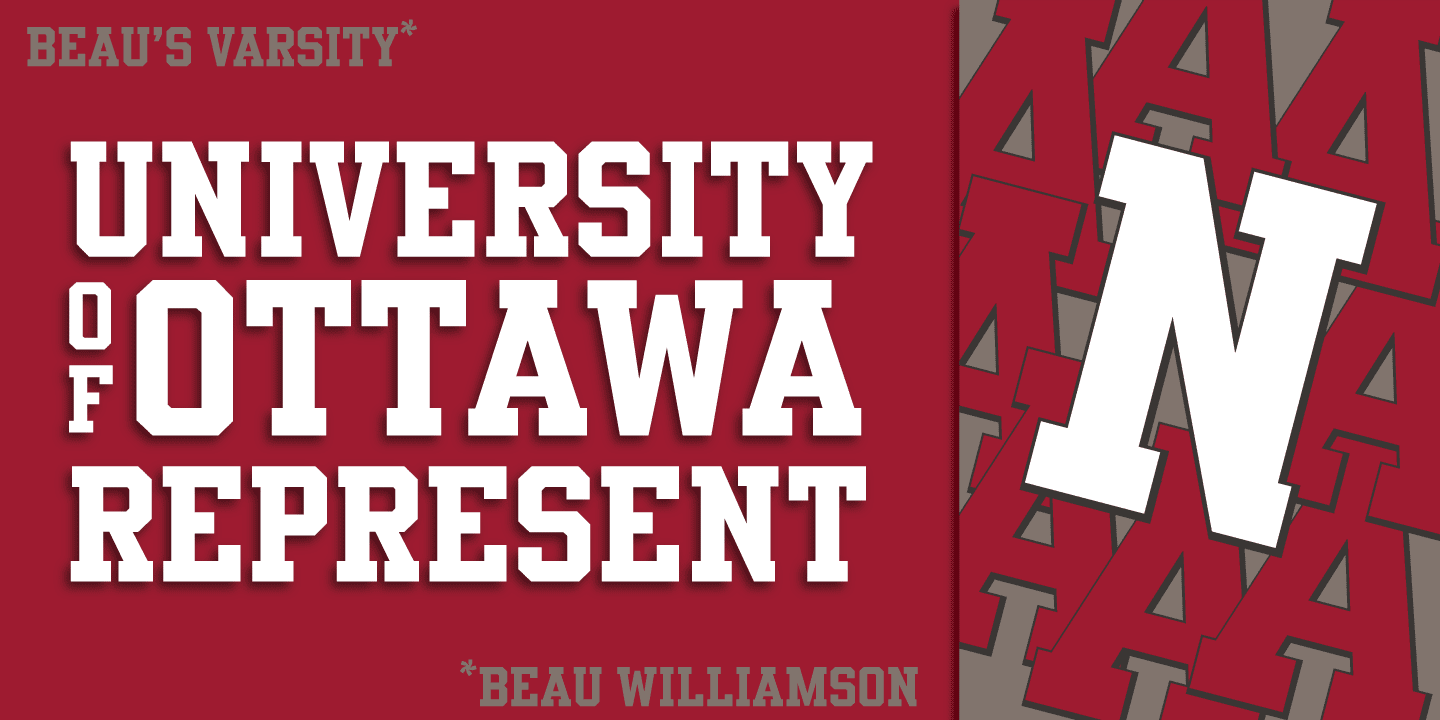
Beau's Varsity Font is ideal for college athletics branding, university sports teams, school spirit merchandise, varsity letter jackets, academic achievement certificates, college reunion materials, student organization logos, school pride campaigns, educational institution signage, and nostalgic alumni communications.
What makes Beau's Varsity Font exciting is its collegiate pride and academic athleticism that captures the essence of university spirit with traditional school charm and competitive excellence. This spirited typeface embodies the spirit of varsity athletics with its bold character forms and school-inspired proportions that evoke cheering crowds in packed stadiums, letterman jackets worn with pride, and the kind of institutional loyalty that creates lifelong bonds between students and their alma mater. The font's collegiate character creates an immediate sense of school pride and the kind of academic tradition that defines the best university experiences.
Beau's Varsity Font family includes regular weight with athletically crafted character designs featuring varsity curves and collegiate proportions. The typeface maintains excellent readability while showcasing its distinctive school spirit personality through boldly designed letterforms that seem stitched onto championship banners with the same pride that fills university halls with tradition.
Educational professionals consistently choose Beau's Varsity Font Free Download for projects requiring authentic collegiate appeal and varsity credibility. This remarkable typeface brings the power of school spirit to brand communications, combining academic aesthetics with athletic tradition to create memorable educational experiences. The athletically designed characters ensure spirited positioning across all applications, making it essential for universities, athletic departments, and any educational organization seeking to communicate the transformative power of school pride and the lasting bonds that come from embracing collegiate tradition through Beau's Varsity Font Free Download.